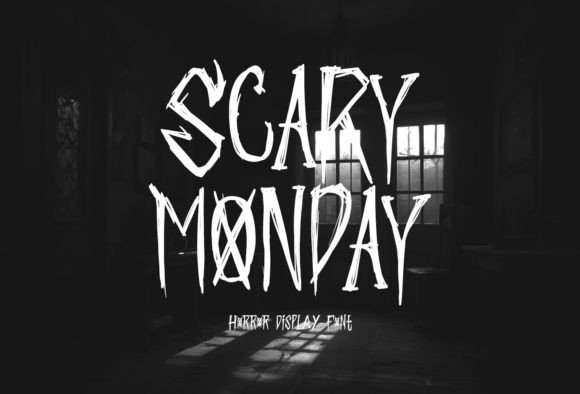
Embark on a thrilling typographical journey with Scary Monday Font, a display font that will send shivers down your spine. This spine-chilling creation by Idealeksis is not for the faint of heart; it's a font that oozes ominous charm, making it the perfect choice for projects seeking to evoke fear and foreboding.
Scary Monday's letters are crafted with precision, featuring jagged, uneven edges that resemble the haunting scrawls of a sinister entity. The characters seem to bleed into one another, creating a claustrophobic and unsettling atmosphere that will leave readers feeling as though the words themselves hold malevolent secrets.
With its unnerving design, Scary Monday is the perfect choice for horror-themed projects, whether it's movie posters, book covers, Halloween invitations, or any promotional material that seeks to elicit a sense of dread and unease. It's a font that will leave a lasting impression, guaranteed to send shivers down the spines of your audience.